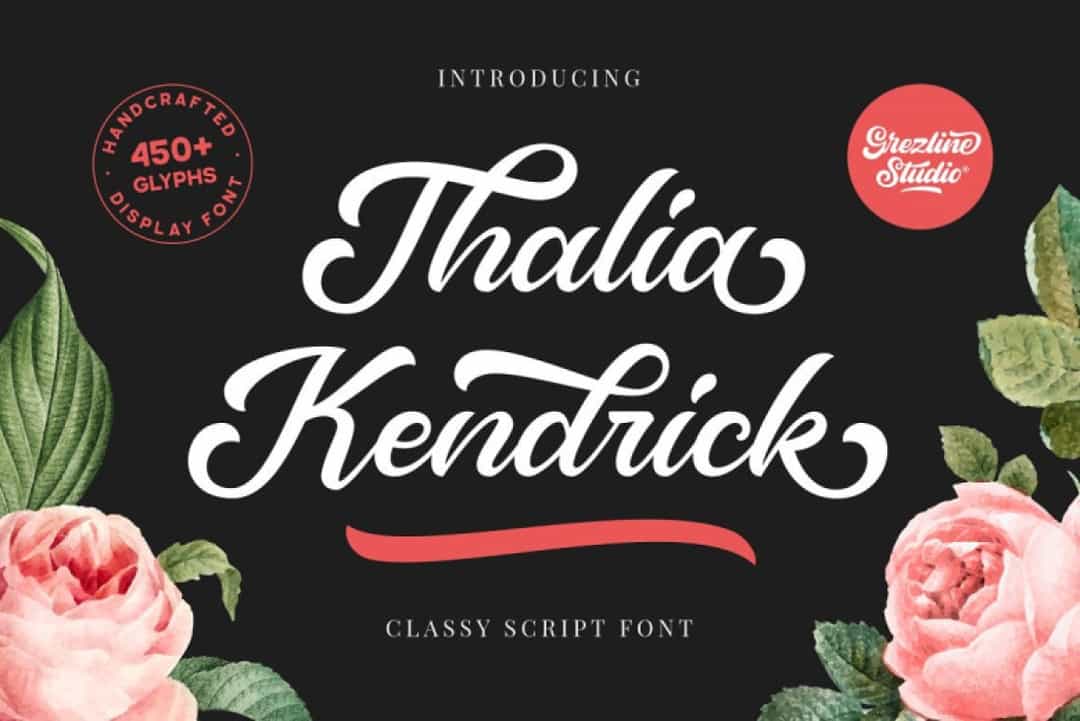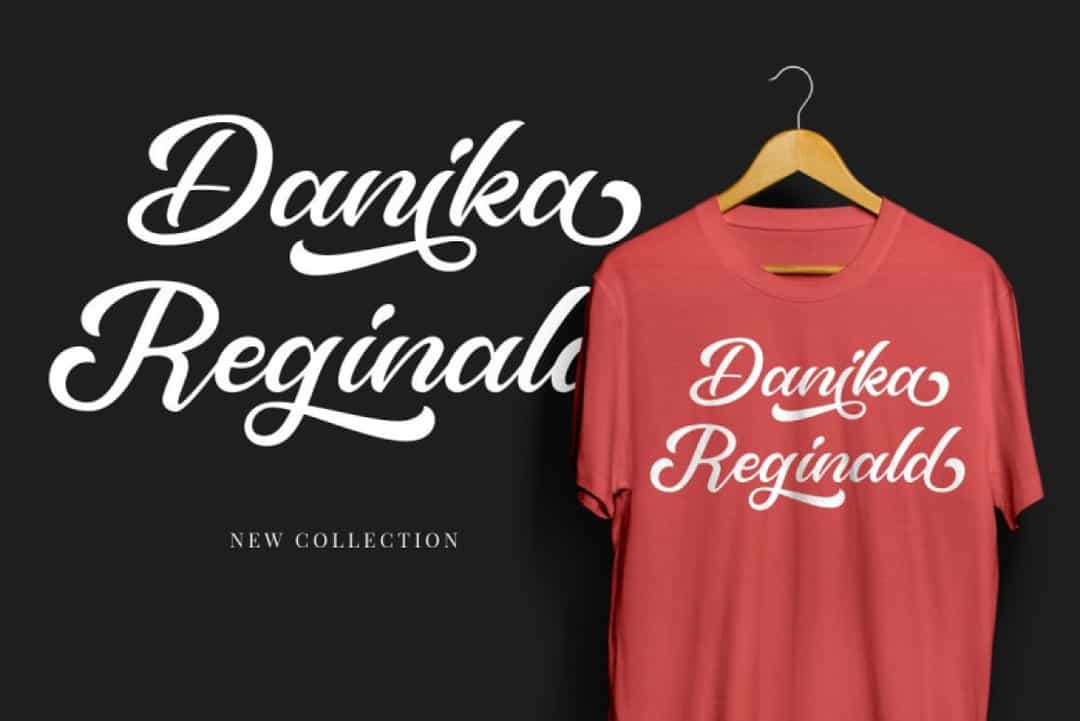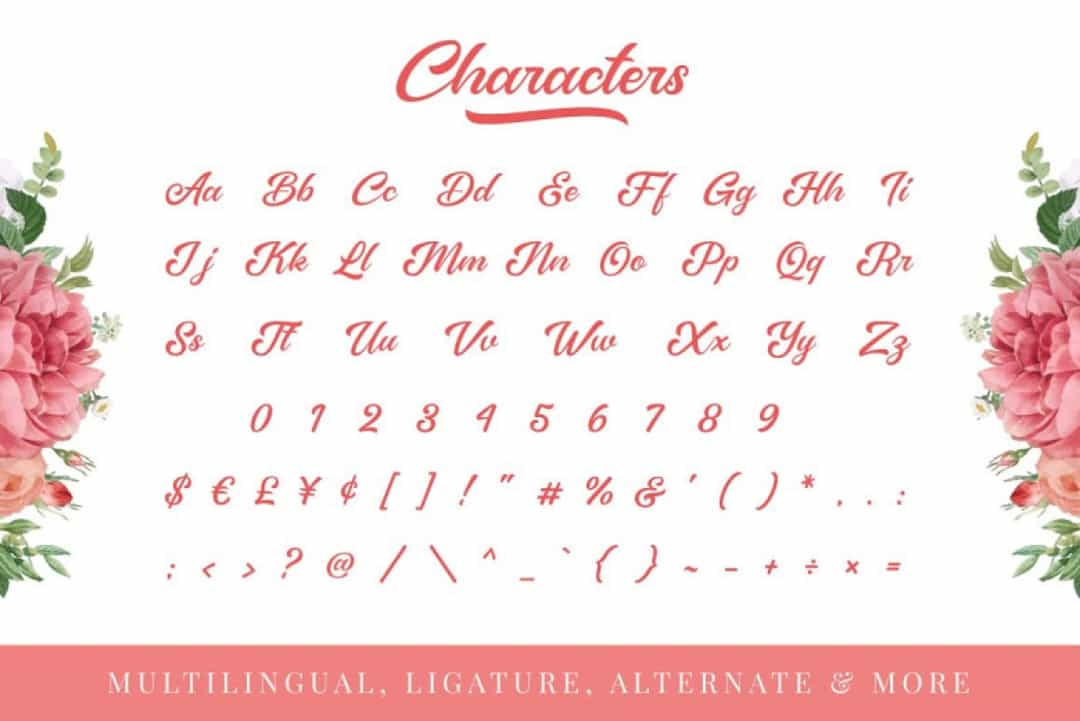
Thalia Kendrick is an elegant yet vibrant script calligraphy font designed to add chic touches to headlines or logotypes. This font’s strong energy, confidence and power add a great deal of nostalgia into any design project.